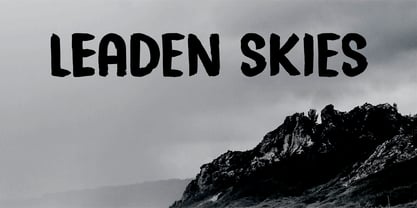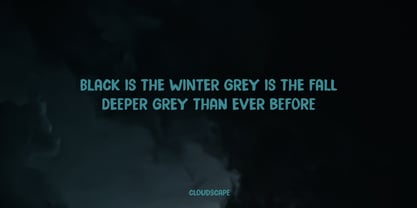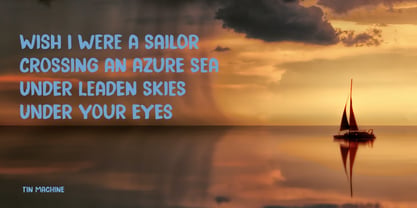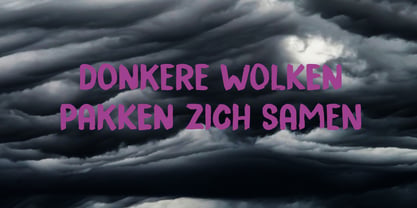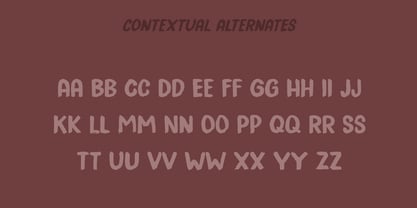
Leaden Skies Pro
por Hanoded
La familia tipográfica Leaden Skies Pro fue diseñada por David Kerkhoff y publicada por Hanoded. Leaden Skies Pro contiene 2 estilos y opciones de paquete familiar. Más información sobre esta familia
A ‘Leaden Sky’ is a dark grey sky without clouds. We don’t see too many of them here in Holland, as we usually have lots of clouds. Yesterday, however, the sky turned a sinister greyish green and it spewed out an an enormous amount of hailstones the size of walnuts.
Leaden Skies is a handmade, all caps display font. I made it with a brush and Chinese ink. It comes with extensive language support and a set of alternates for the lower case glyphs.
Hanoded is run by Dutchman David Kerkhoff. His fonts are a mishmash of styles, as he just creates whatever pops into his head. You will find a lot of brush fonts in his collection, as his favourite tools are brushes and Chinese ink, with cartoon style fonts and script fonts complementing his repertoire. Aside from making fonts, David occasionally guides tours in far-flung places, renovates his '30's house and tries reasoning with his wife and (teenage) kids. Not an easy task!